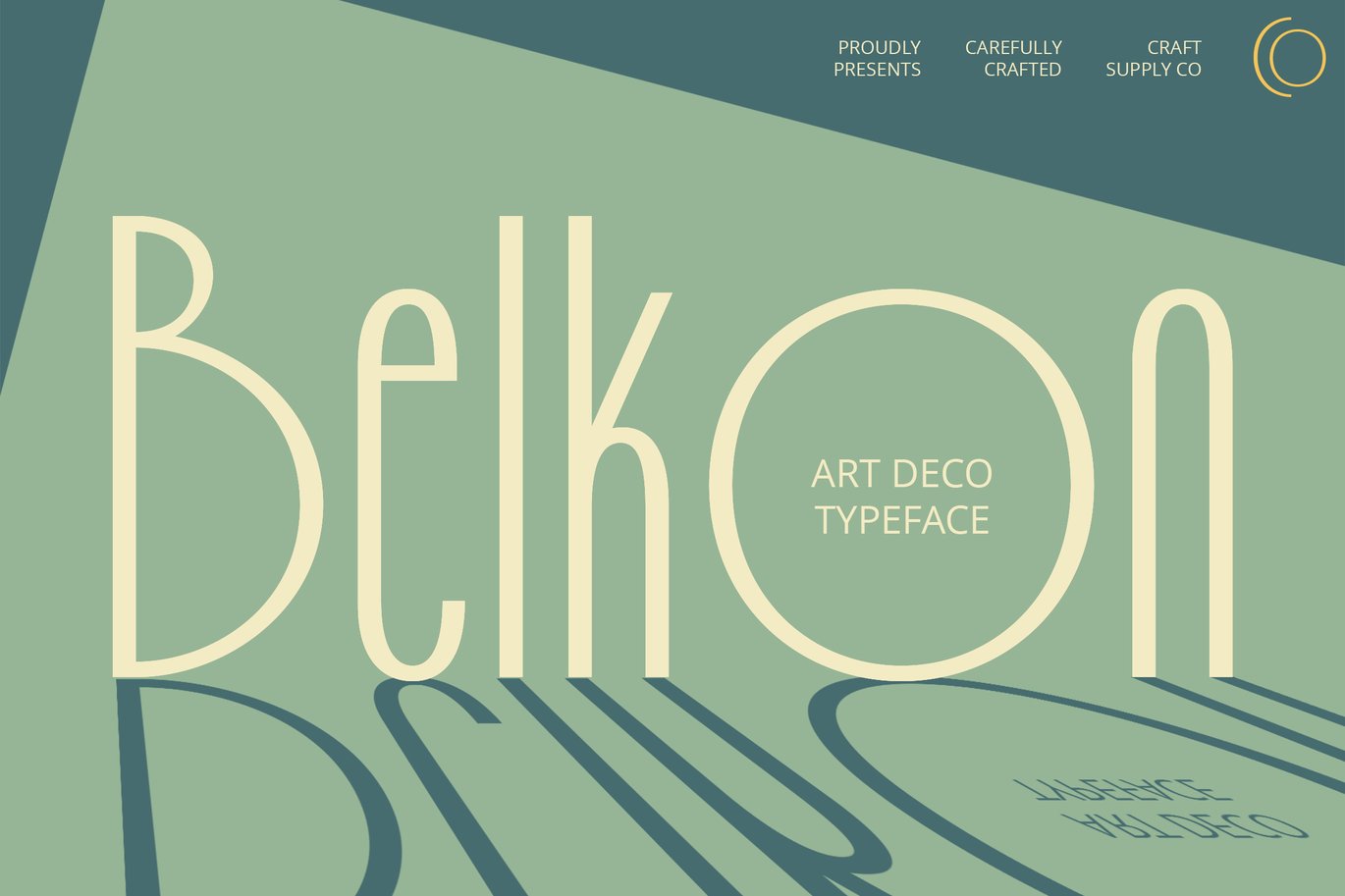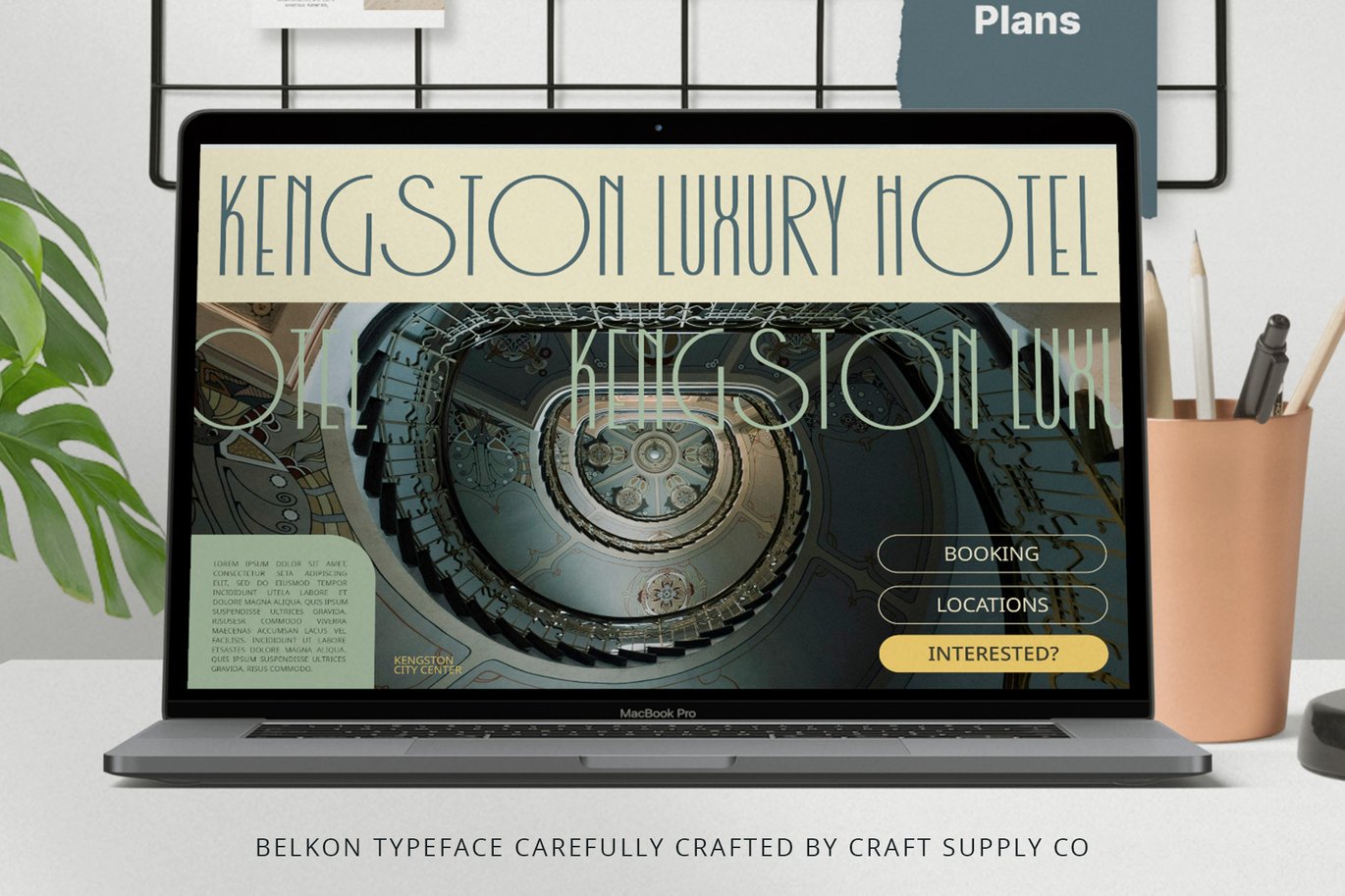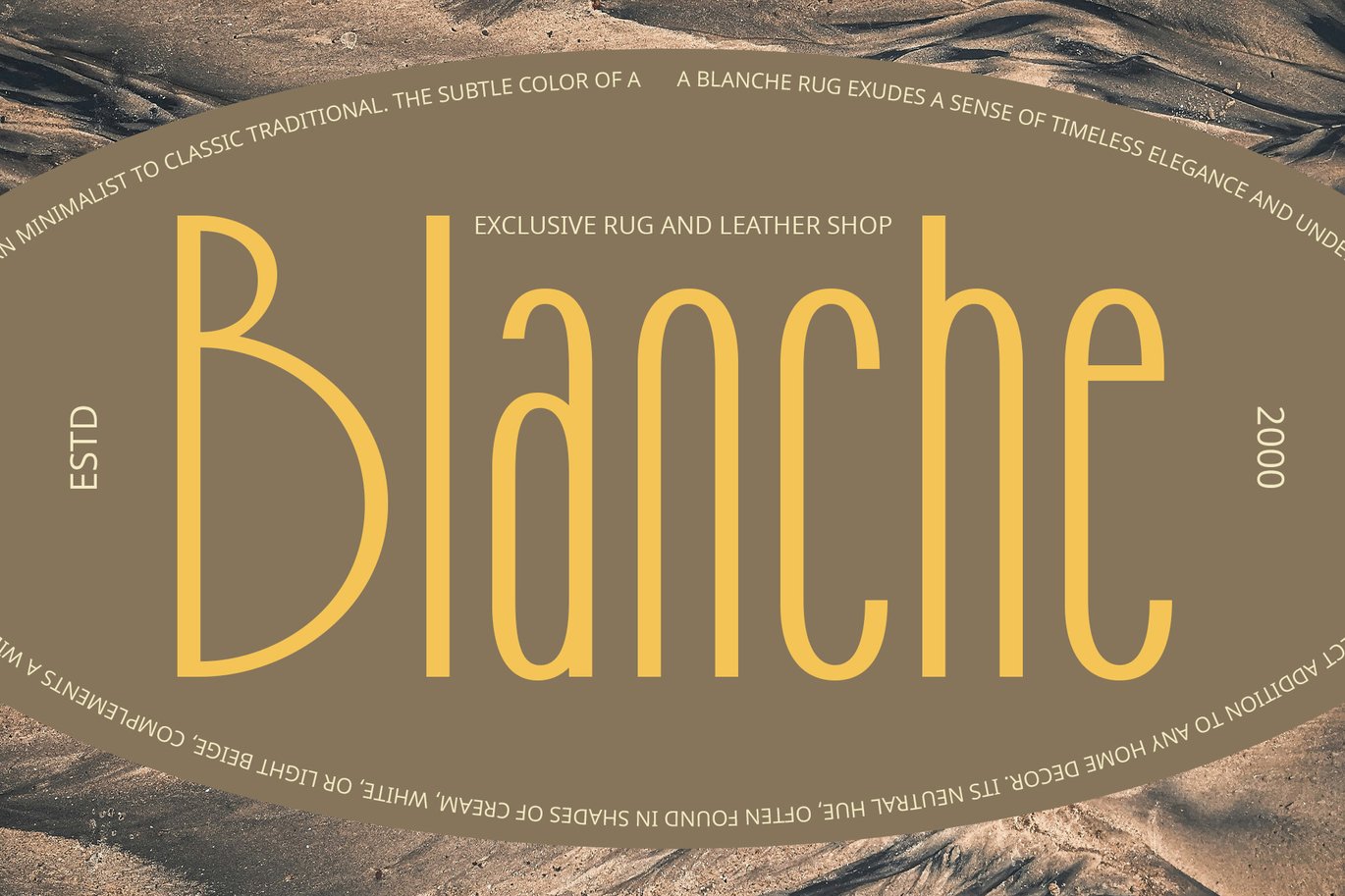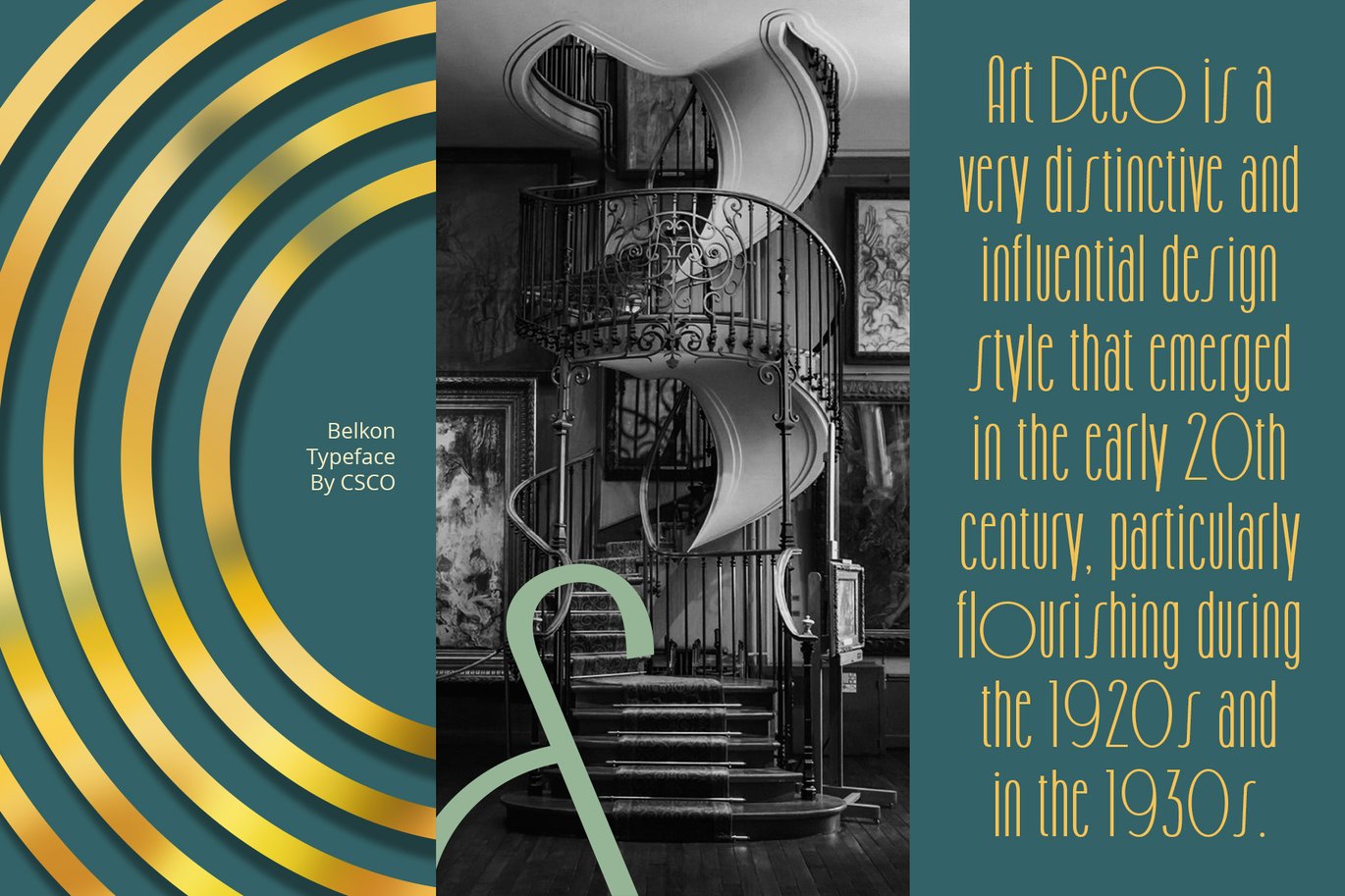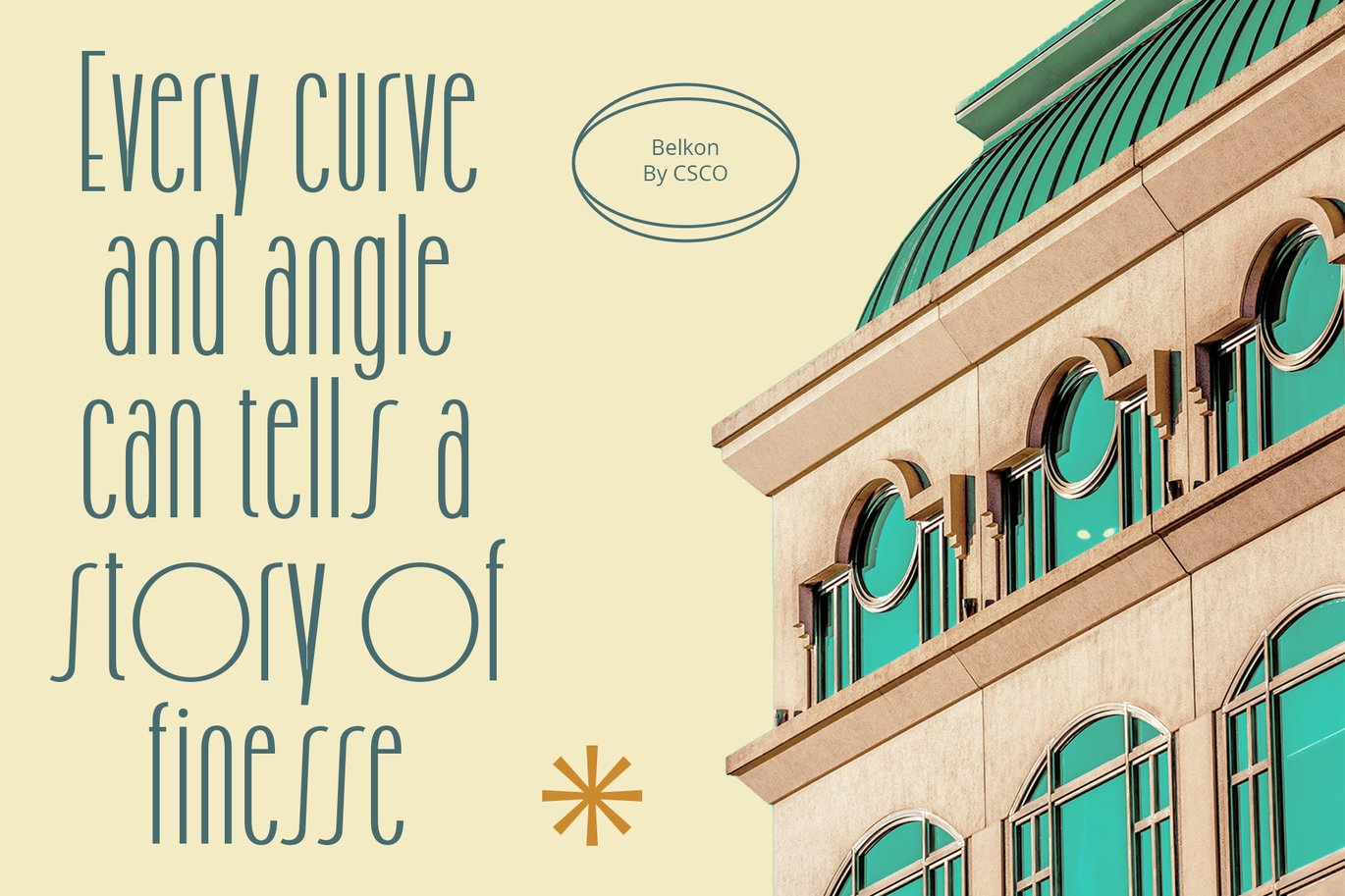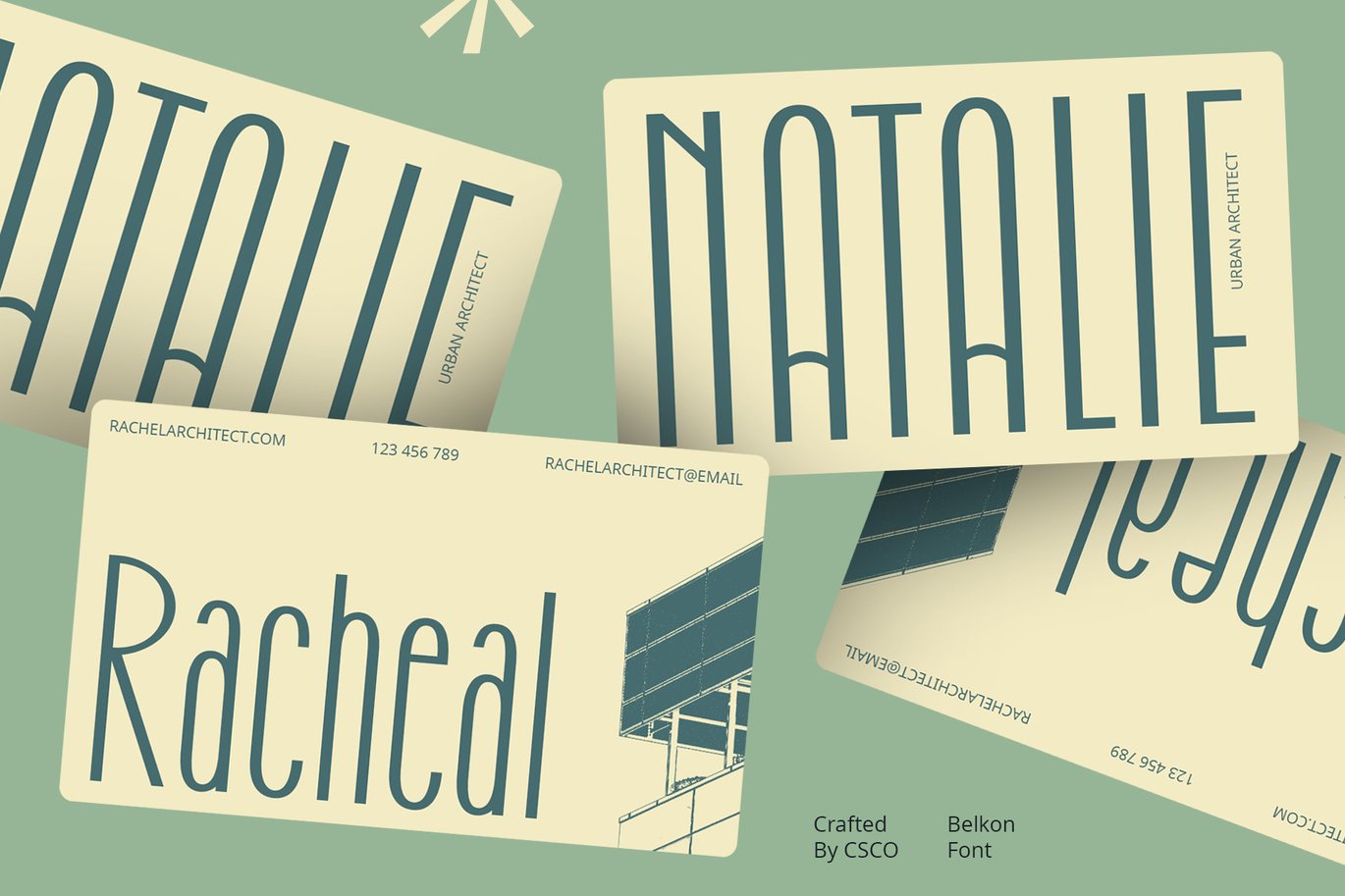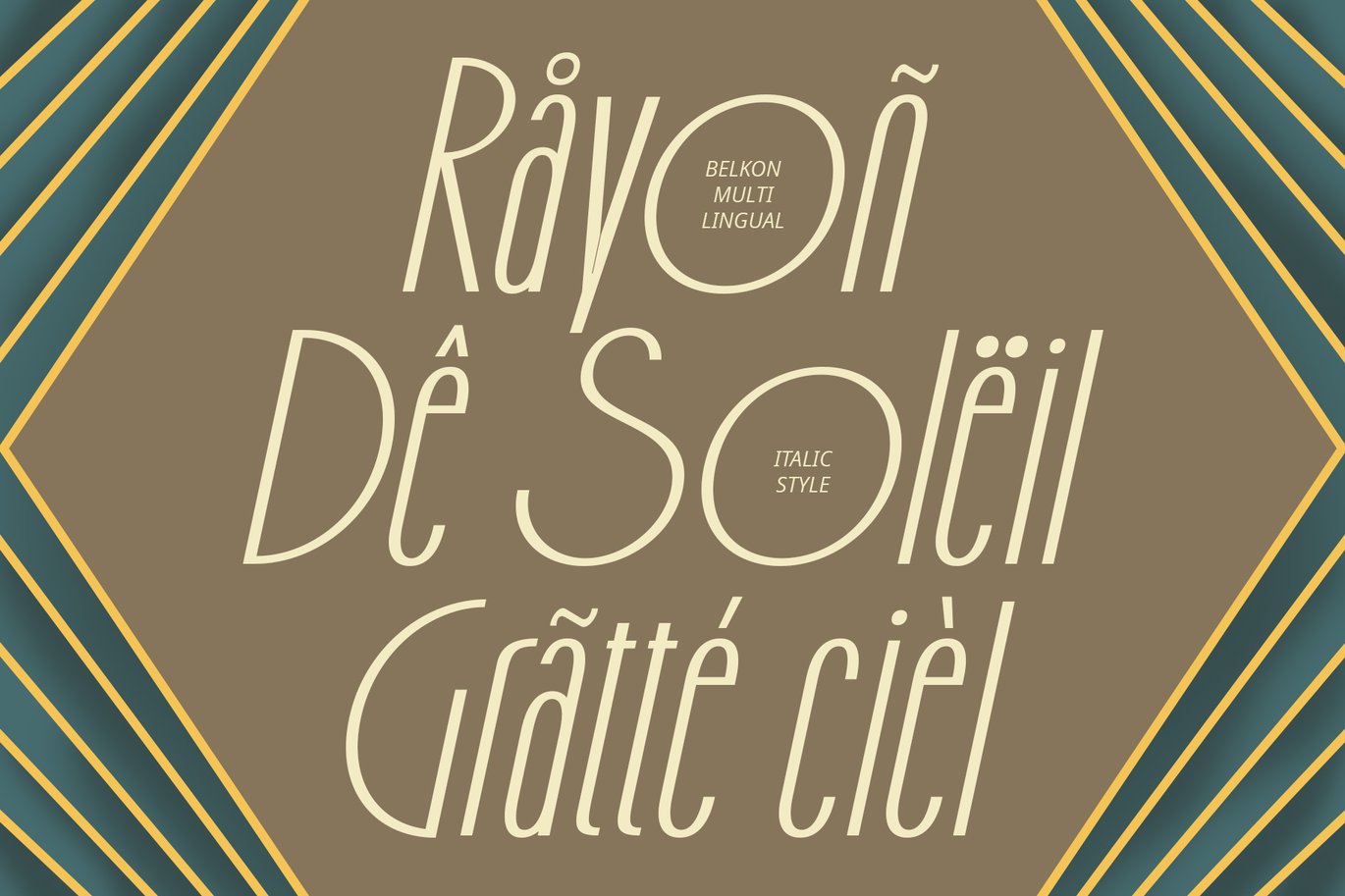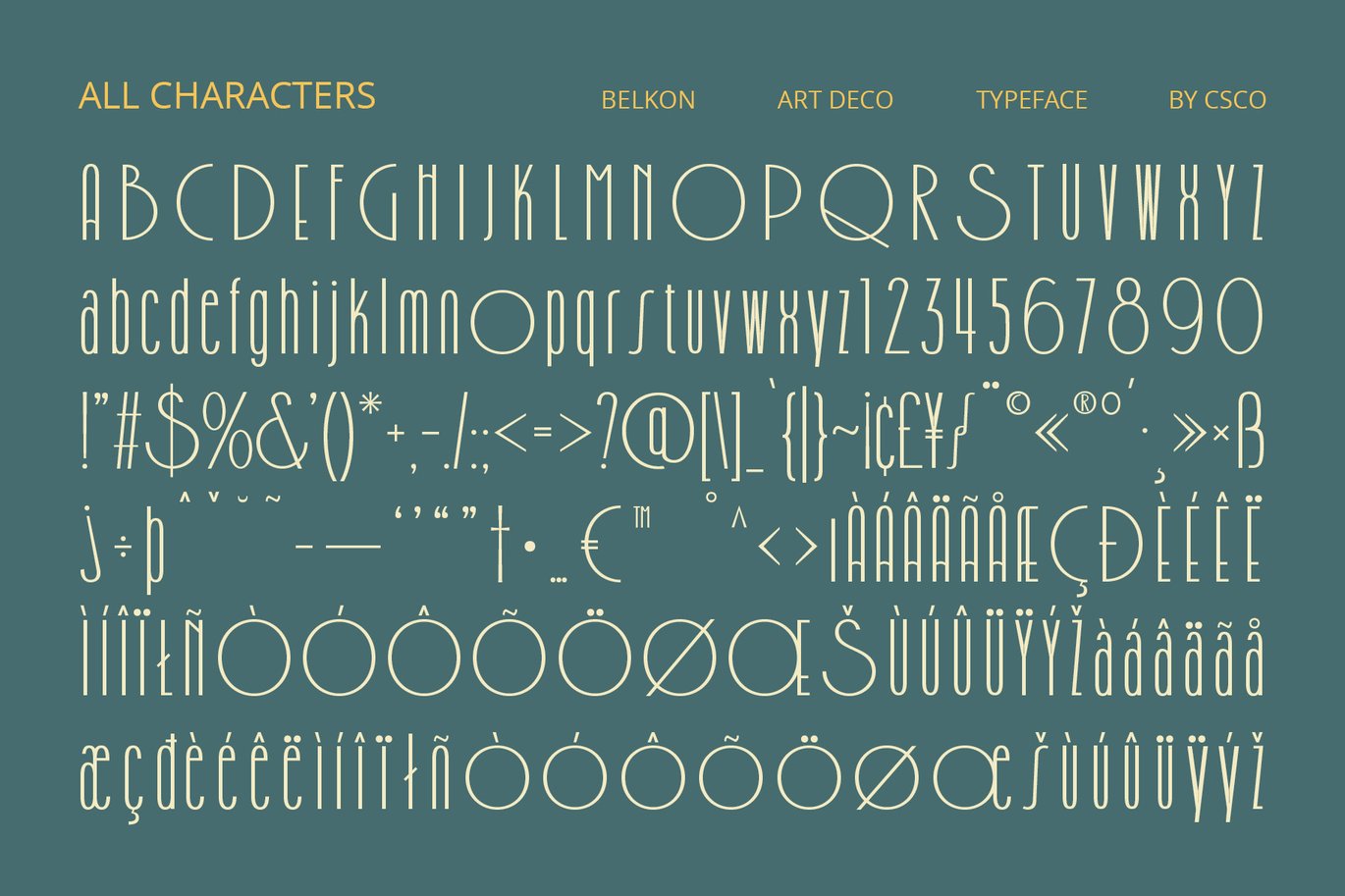
Belkon – Art Deco Font
Belkon – Art Deco Font: Where Modernity Meets Art Deco Elegance
Modern Sans-Serif with Art Deco Flair
Belkon – Art Deco Font is a modern sans-serif font with a touch of Art Deco flair. Its sleek lines and geometric shapes pay homage to the elegance and glamour of the Art Deco movement, making it perfect for designs that aim to capture the essence of the era.
Versatile and Captivating
With its versatile design, Belkon Font is suitable for a variety of uses, including headlines, body text, and branding. Its Art Deco-inspired details add a stylish flair to any project, ensuring that your work stands out from the crowd.
Enhanced Visual Appeal
Belkon Font prioritizes visual appeal, ensuring that your designs captivate and engage viewers. Whether used in print or digital media, this font adds a touch of sophistication and charm that resonates with audiences.
Perfect for Captivating Designs
Whether you’re working on a poster, a website, or a branding project, Belkon Font is the perfect choice for designs that aim to captivate and inspire. Its timeless design ensures that your work will always have a classic and elegant appeal.